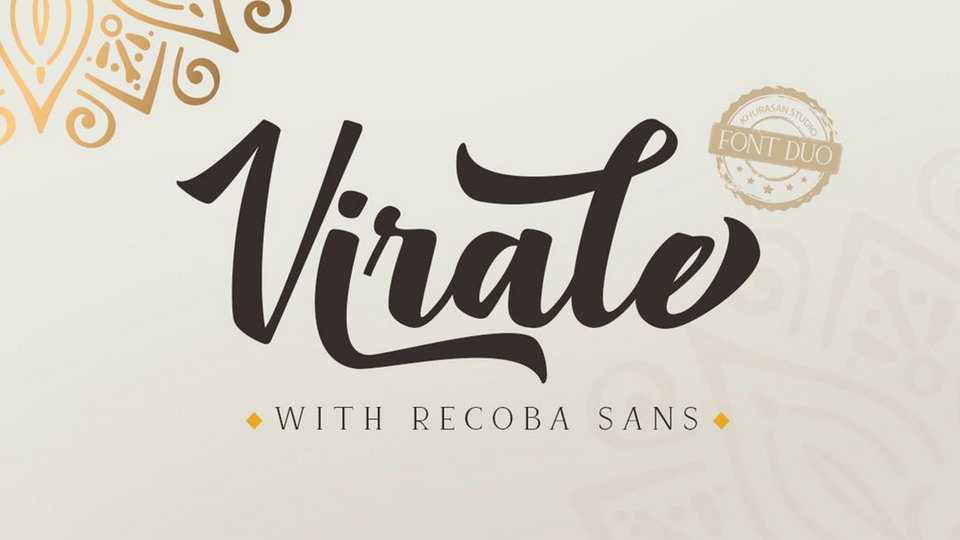
Download Virale Script font, a fancy bold hand lettered script with fresh & modern style. Great for logo, branding, greeting card, poster and any design that you create.